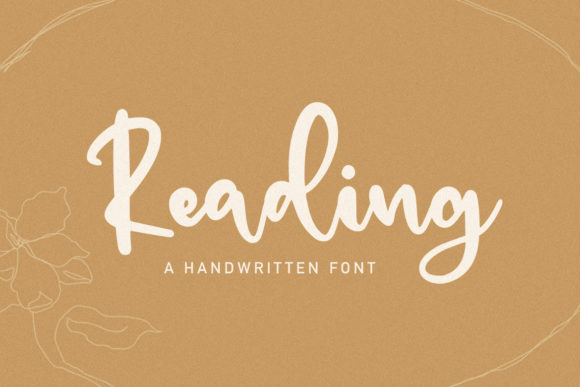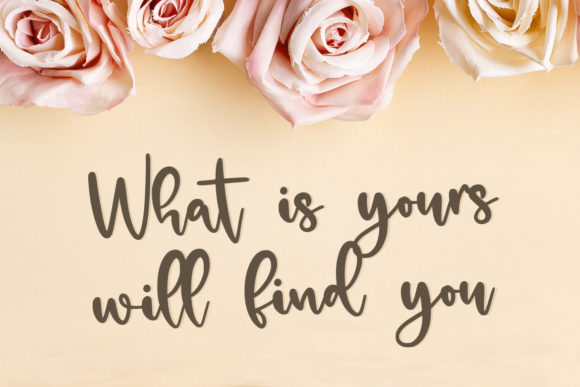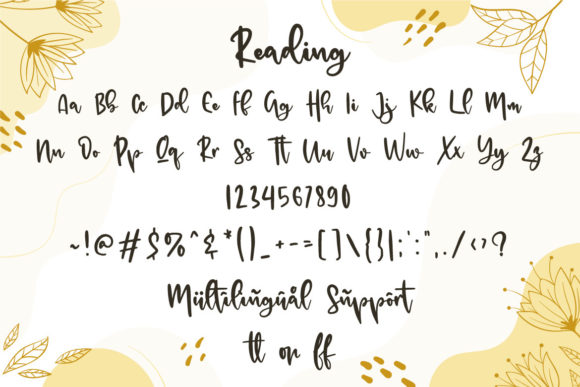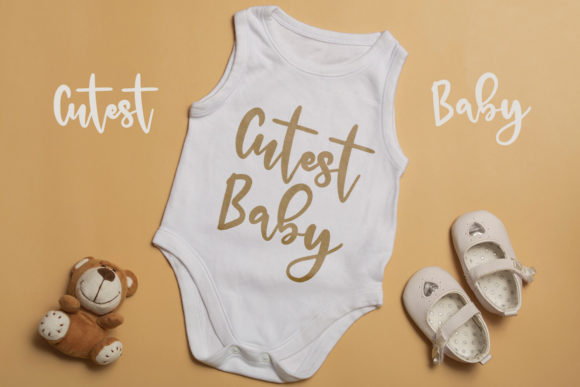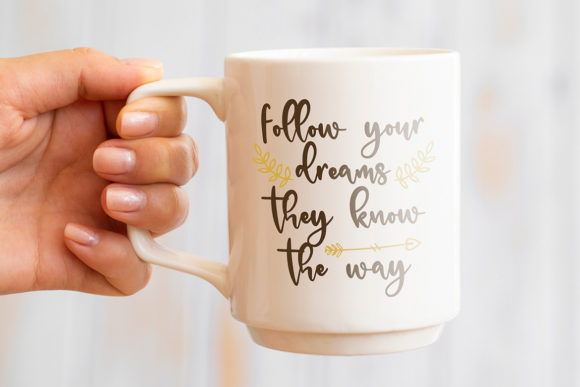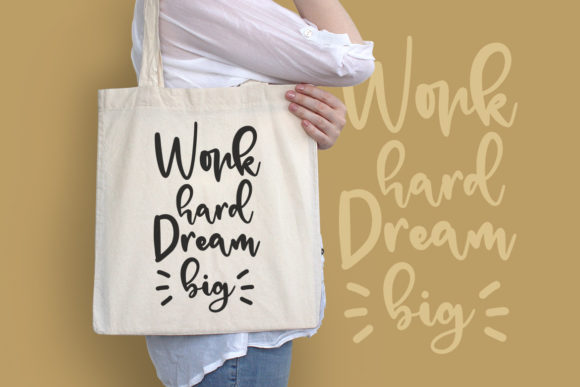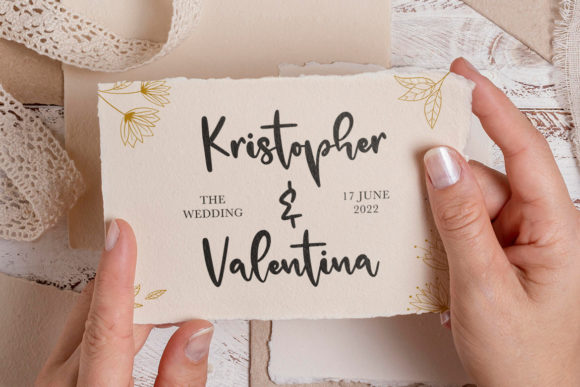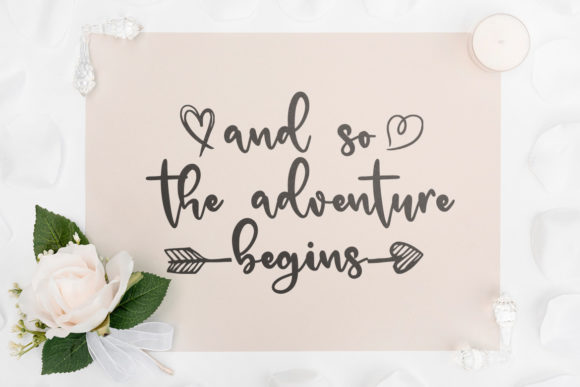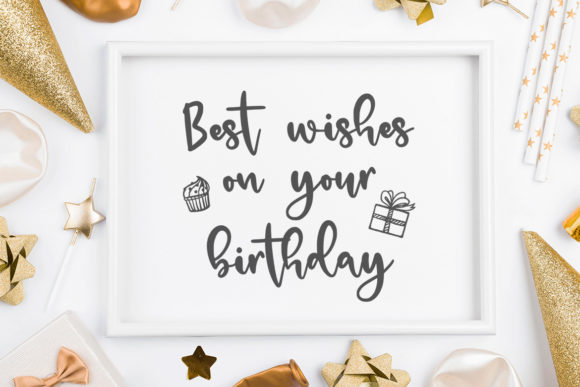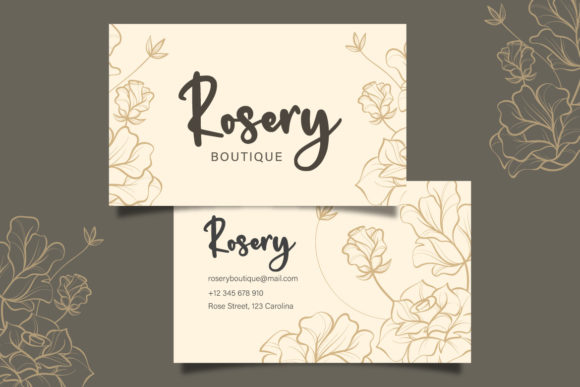
Reading Font
About Reading Font
Reading is a unique and elegant handwritten font. It looks beautiful on a variety of designs requiring a personalized style, such as wedding invitations, thank you cards, weddings, greeting cards, logos and so on.